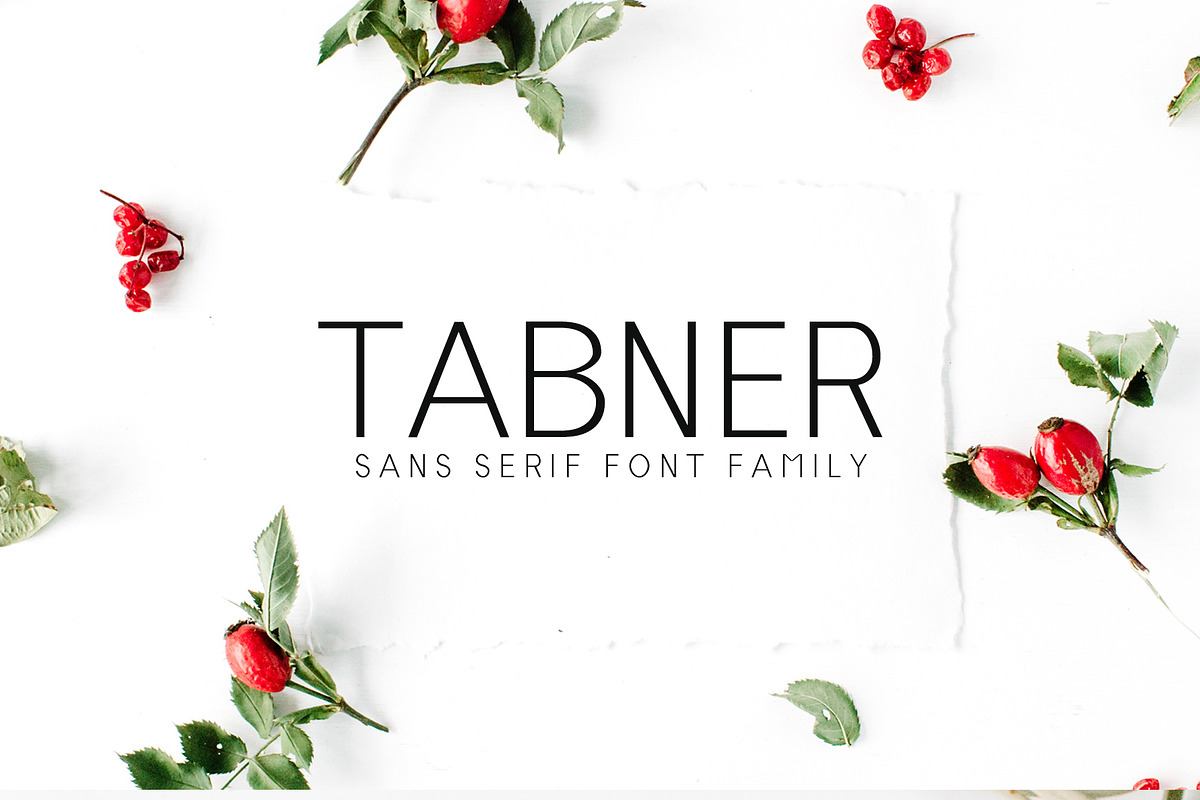
Tabner Sans Serif Font Family Free Download is a clean, modern, and highly versatile typeface designed for clarity and professional impact. With multiple weights and styles included, Tabner is ideal for everything from branding and corporate design to editorial layouts, websites, UI/UX interfaces, and packaging. Its geometric structure and minimalistic aesthetic make it a go-to choice for sleek, functional typography.
Using the Tabner Sans Serif Font Family Free Download gives your design system consistency and flexibility. Whether you need bold headlines, crisp body text, or modern taglines, Tabner delivers legibility and contemporary style across all applications.